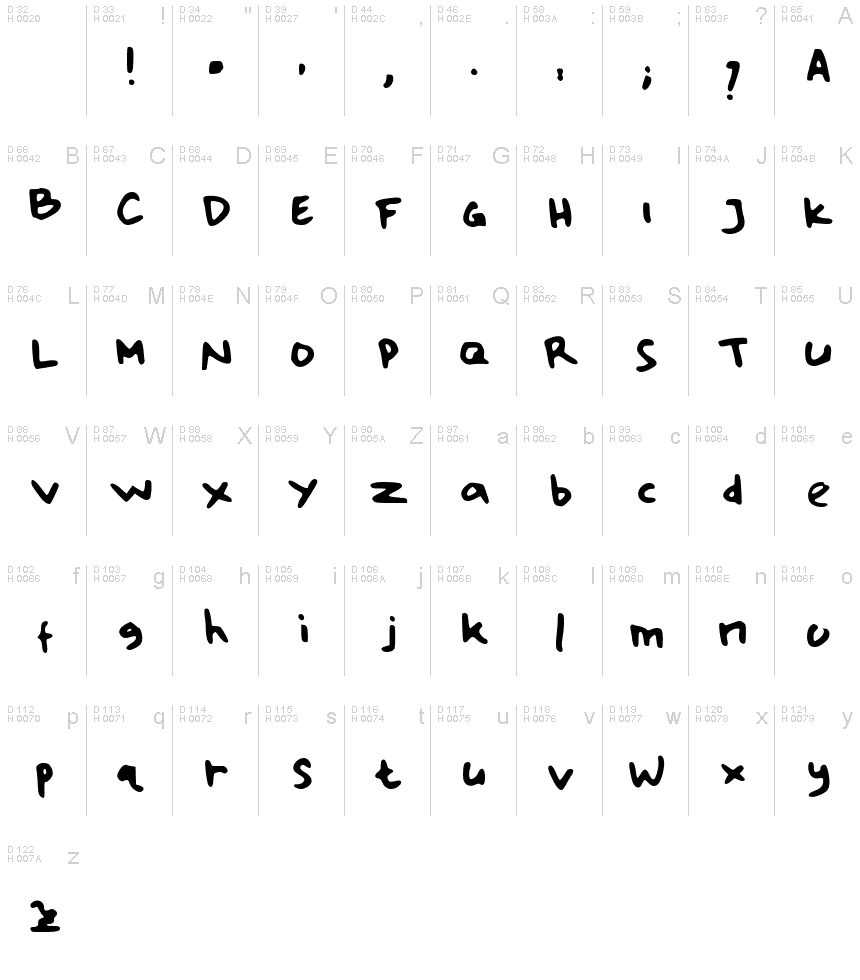
Handwrite 01 Regular
Handwrite 01, the latest creation by Muhammad Wulani, is a bold and expanded font that exudes personality and creativity. Its handwritten style captures the essence of a free-spirited artist, making it perfect for projects that require a personalized touch. Whether you're designing a poster for a music festival or creating an album cover for an indie band, Handwrite 01's unique charm will make your work stand out. With its thick strokes and unconventional curves, this semi-bold typeface will lend an edgy vibe to any design project that requires boldness and individuality. Give your designs the extra oomph they need with Handwrite 01!